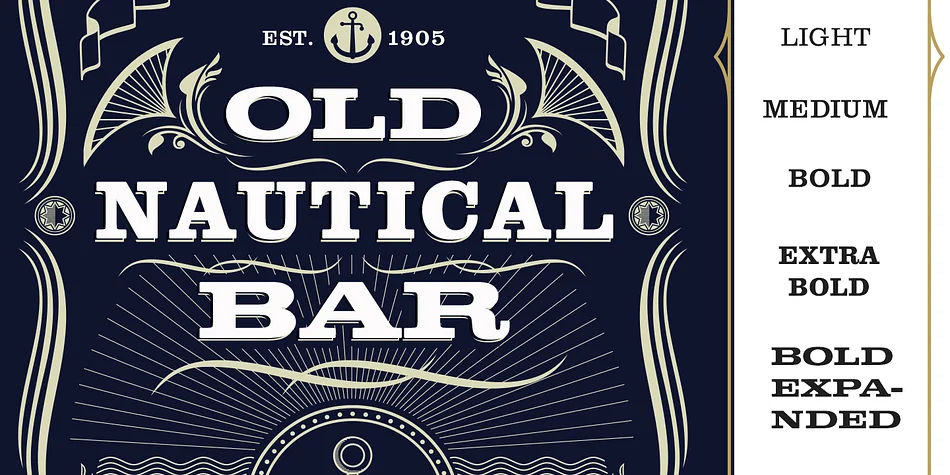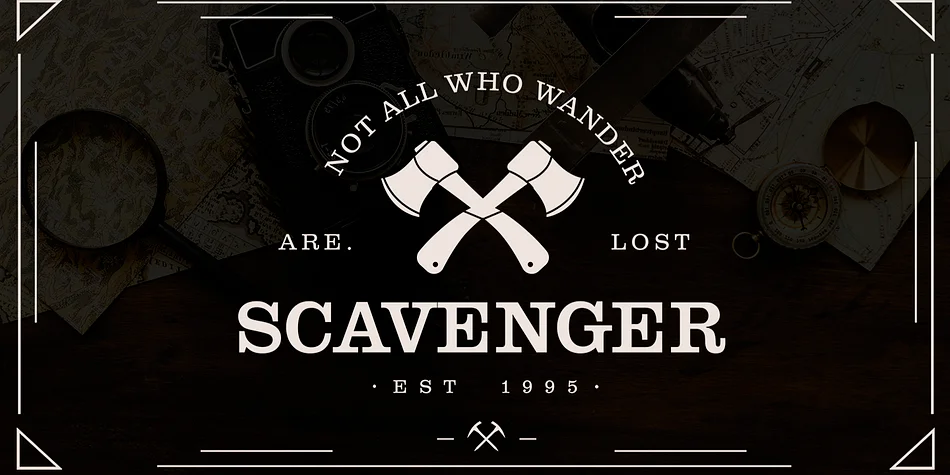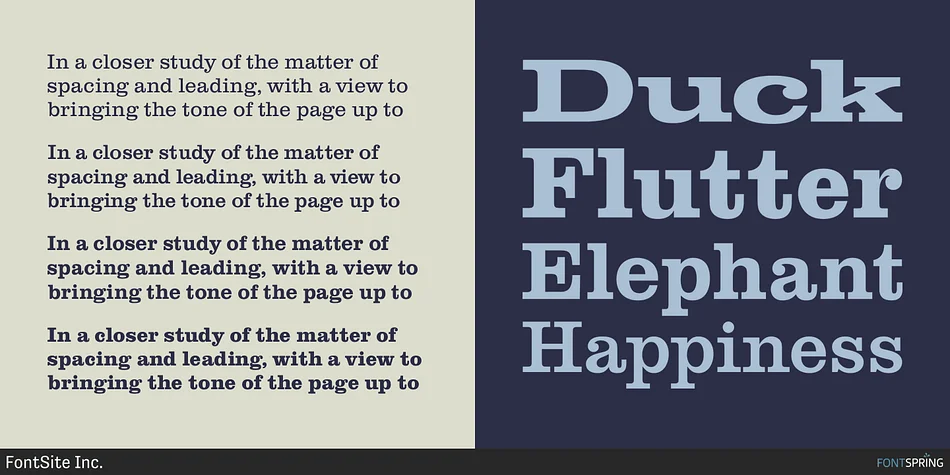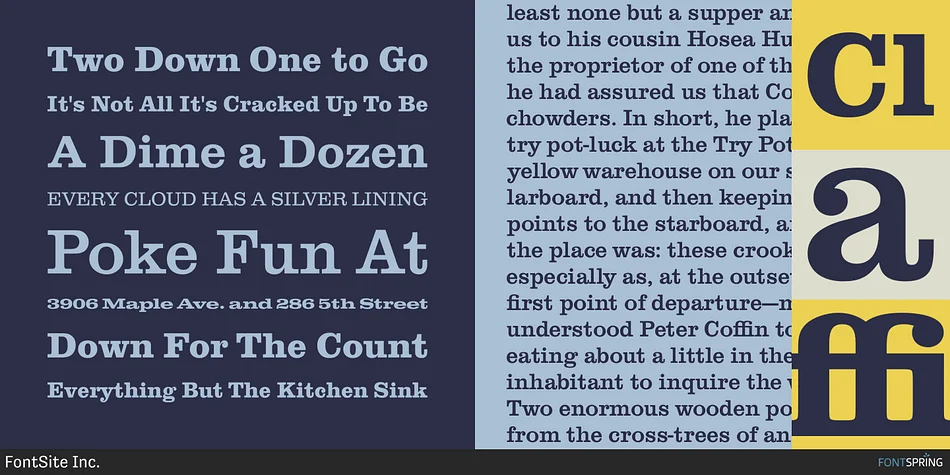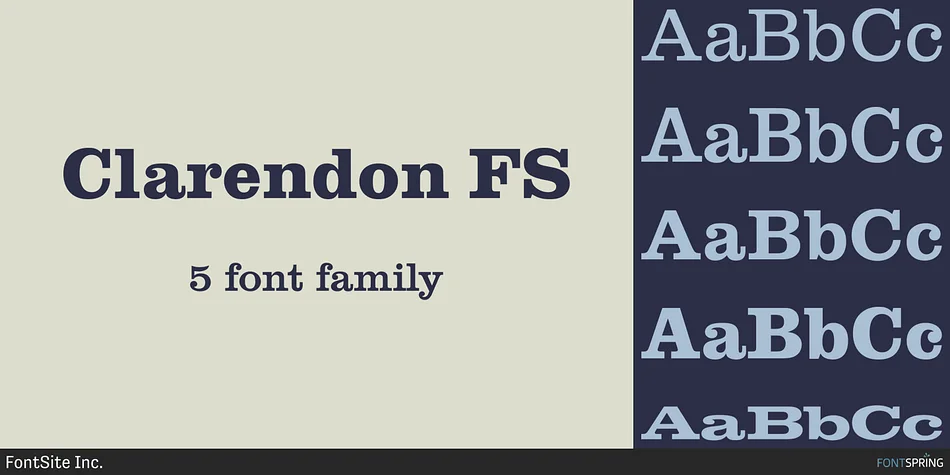
Clarendon FS Font
Typography shapes perception at a subconscious level. Clarendon FS leverages distinctive character without sacrificing readability to make every composition feel considered. The typeface brings a versatile sensibility to a broad range of creative disciplines, with versatility across print and screen contexts that holds up whether the work is print-first or screen-first.
In practice, Clarendon FS proves particularly effective for signage systems, brand identity systems, environmental graphics, logo design, advertising campaigns. Designers reaching for it find that the type decisions feel resolved rather than laboured — a useful quality when client timelines are tight.
The range of applications extends to product labels, social media graphics, poster creation, packaging design. That breadth is deliberate: the proportions and spacing were stress-tested across a wide range of mock briefs before the typeface was finalised.
Clarendon FS sits comfortably alongside both classic and contemporary typefaces in multi-font hierarchies. It takes direction rather than competing for attention — a quality that experienced designers know is harder to find than it appears.
UX designers establishing typographic systems for digital products find Clarendon FS a reliable choice for projects that demand both personality and restraint. The design avoids the self-conscious quirkiness that dates quickly, settling instead for considered distinctiveness that holds up over time.